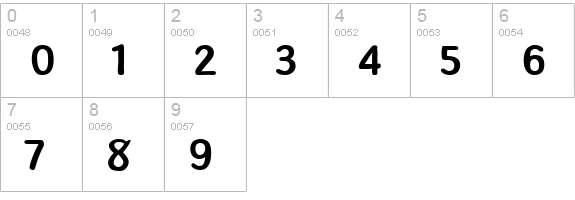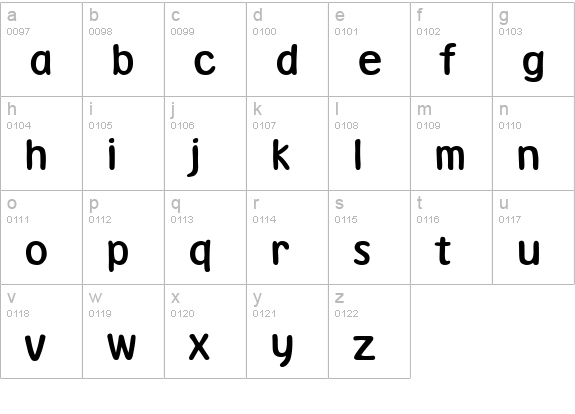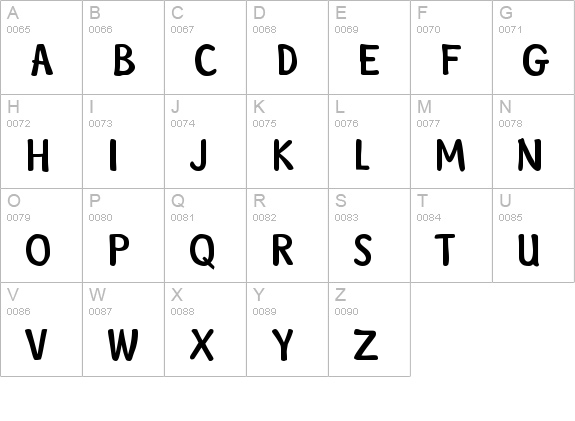
Fontoon font is a stylish and modern typeface that effortlessly captures attention with its unique design. This versatile font strikes the perfect balance between sophistication and playfulness, making it ideal for a wide range of design projects. Whether you're creating a sleek corporate logo or a fun poster for a special event, Fontoon font is sure to elevate your design to the next level. What makes Fontoon font even more appealing is that it is completely free to download. Yes, you read that right - this amazing font is freely available at FontsMarket.com, allowing you to access it easily and incorporate it into your projects without any cost. With its clean lines, elegant curves, and overall aesthetic appeal, Fontoon font is a must-have addition to any designer's toolkit. Download it today and let your creativity soar with this exceptional font.